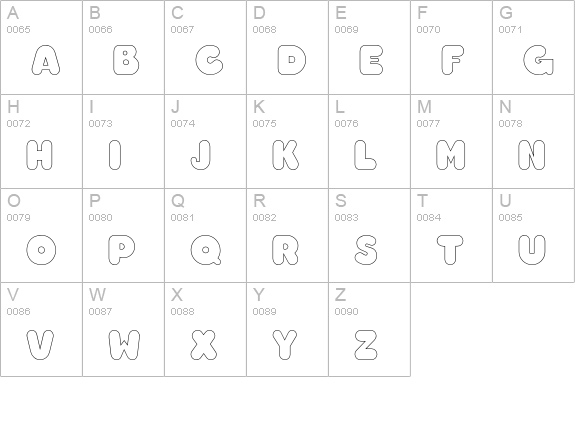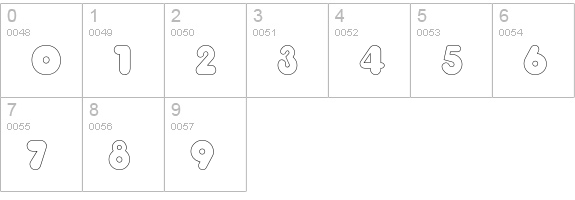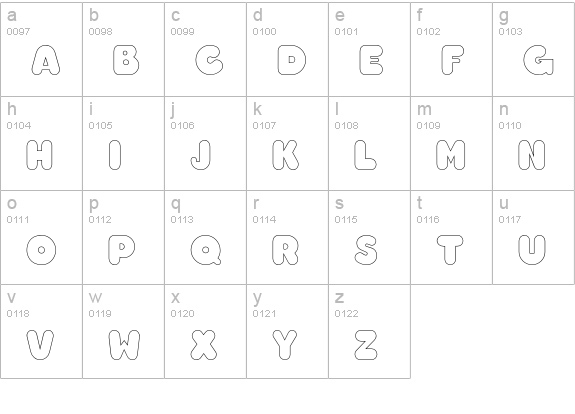
TooMuchClear Font Details
Introducing TooMuchClear, a captivating font that exudes elegance and sophistication while maintaining a playful edge. This unique typeface effortlessly combines clean lines with a touch of whimsy, making it the perfect choice for any design project that requires a harmonious blend of professionalism and creativity. With its generous letter spacing and sleek, minimalist design, TooMuchClear offers a refreshing alternative to traditional fonts. Its versatile nature allows it to adapt seamlessly to a wide range of applications, including branding, advertising, packaging, and more. But what truly sets TooMuchClear apart is its accessibility. This remarkable font is freely available to download at FontsMarket.com, ensuring that designers and creatives from all walks of life can experience the magic of this typeface without any limitations. Whether you're a seasoned professional or just starting your design journey, TooMuchClear empowers you to bring your visions to life with effortless grace. Crafted with meticulous attention to detail, TooMuchClear boasts exceptional legibility, ensuring that your message is always clear and easily understood. Its carefully crafted curves and precise angles create a harmonious visual rhythm that draws the viewer in, leaving a lasting impression. Whether you're looking to create eye-catching headlines, stunning logos, or elegant invitations, TooMuchClear has you covered. Its extensive character set includes a variety of styles and weights, giving you the freedom to express your creativity and customize your designs to perfection. In a world where creativity knows no bounds, TooMuchClear is a font that embraces the spirit of innovation and self-expression. Its timeless appeal and effortless versatility make it a must-have tool in any designer's arsenal. So why wait? Embrace the endless possibilities and download TooMuchClear for free at FontsMarket.com today. Unleash your creativity and elevate your designs with this extraordinary font.